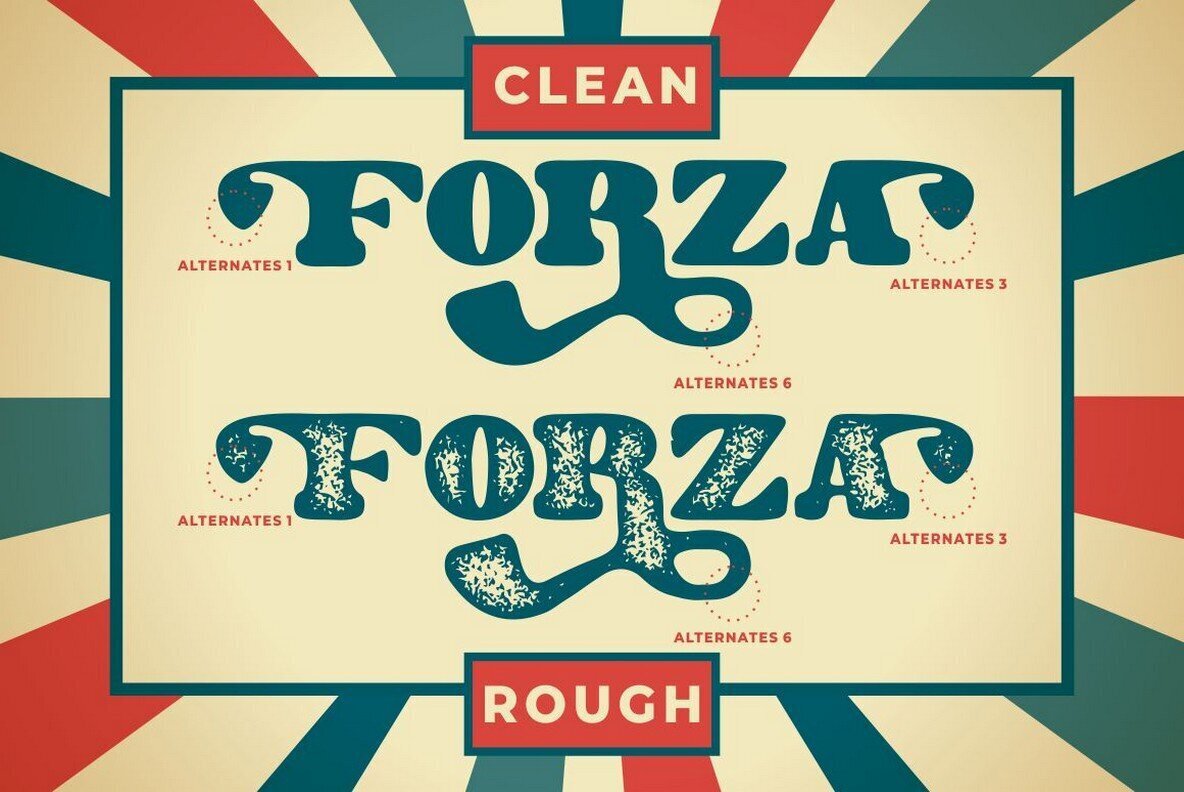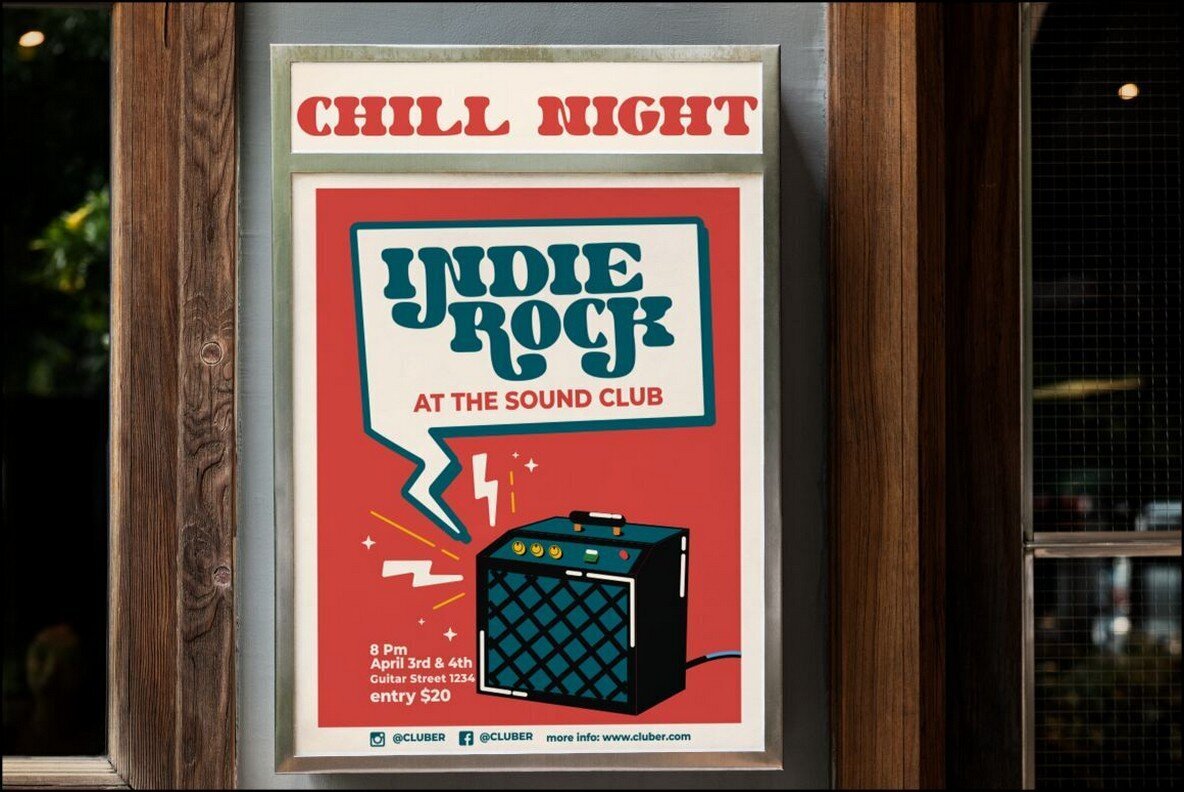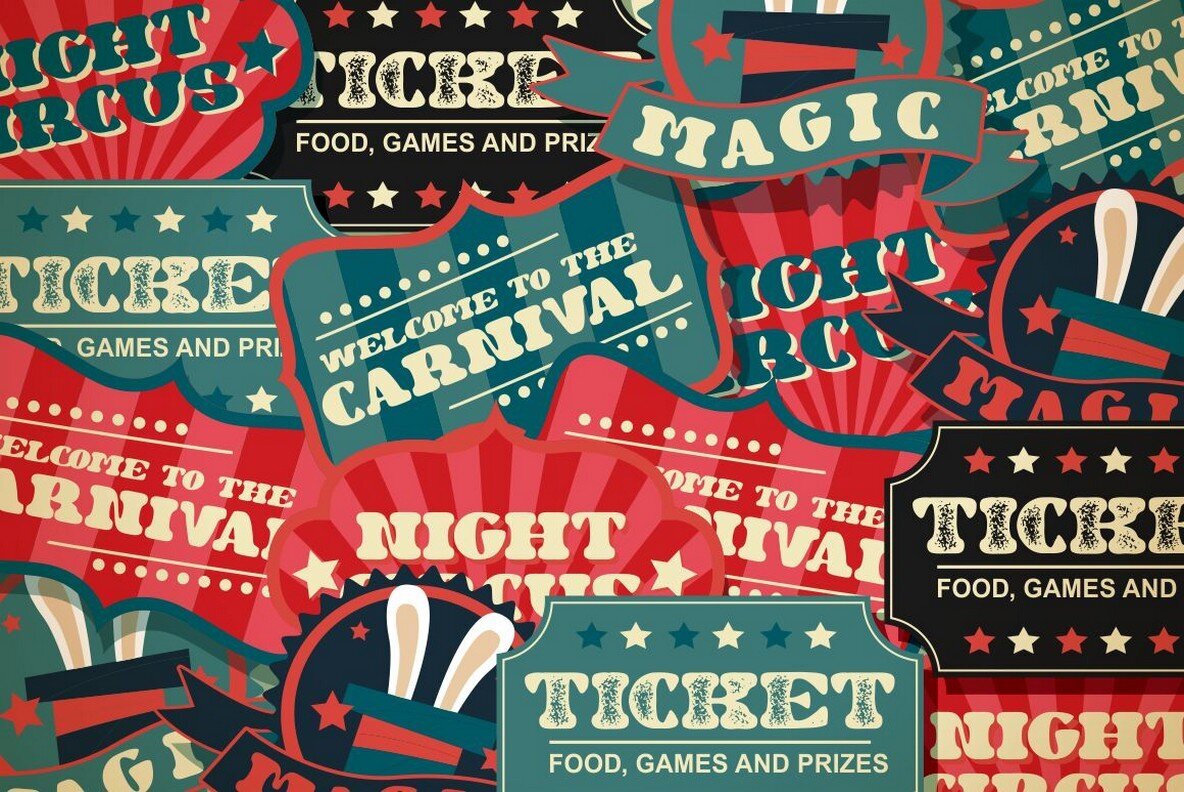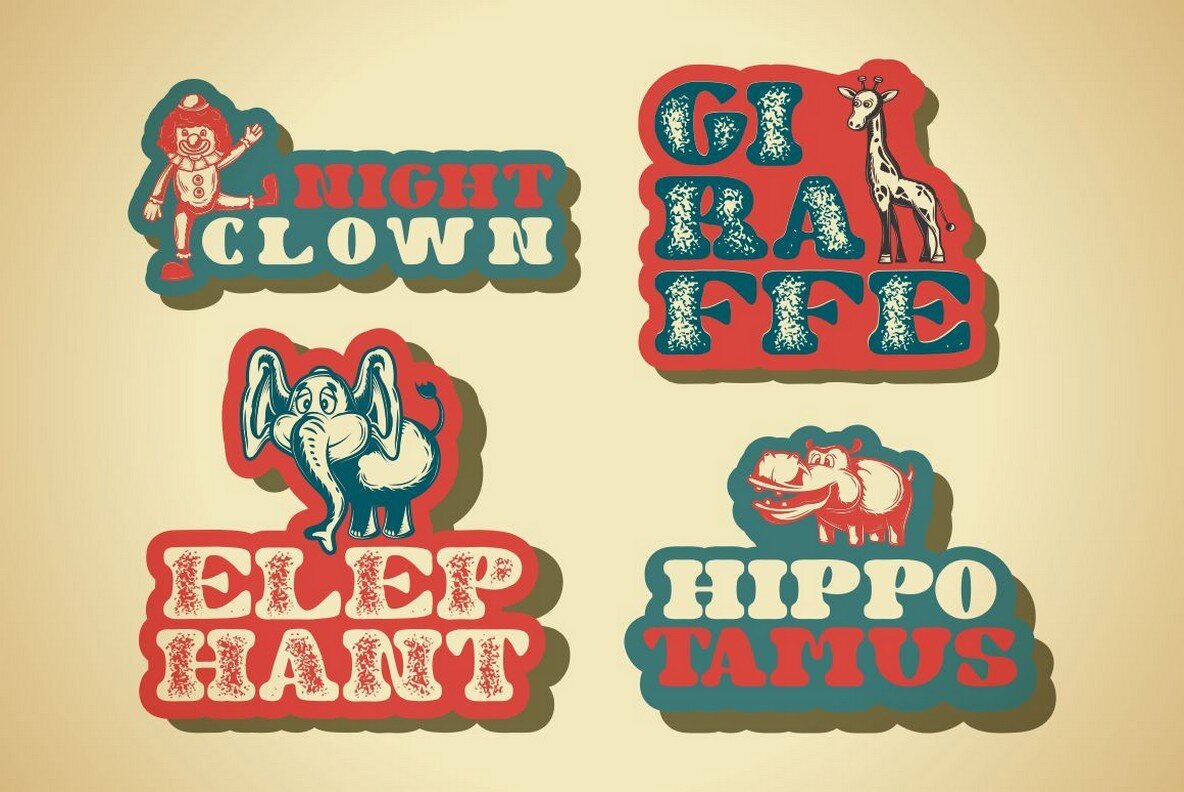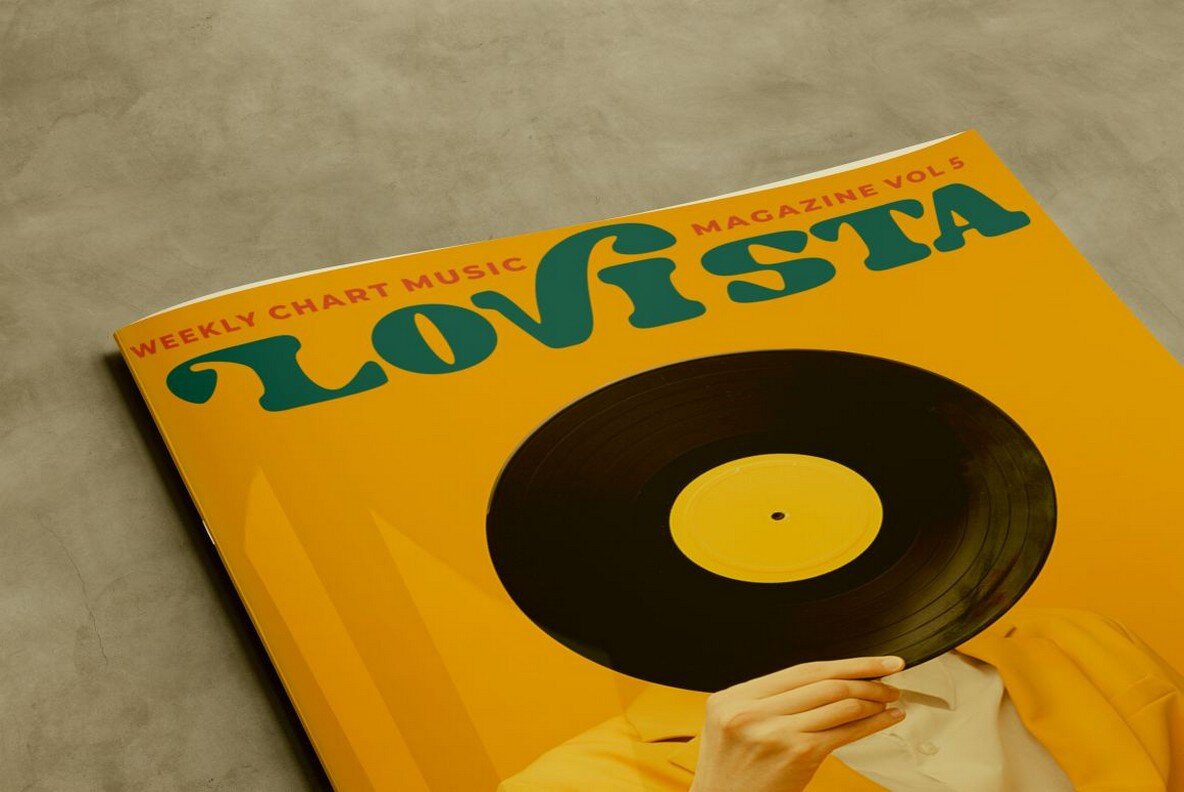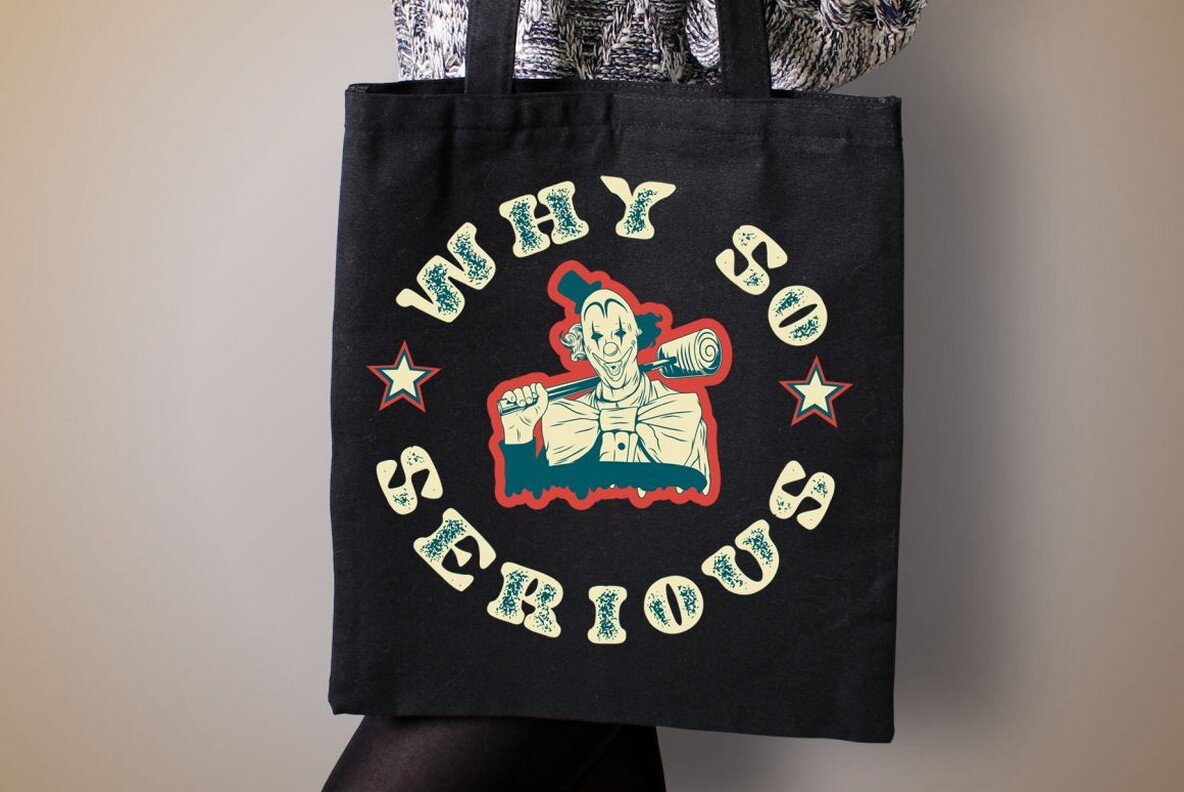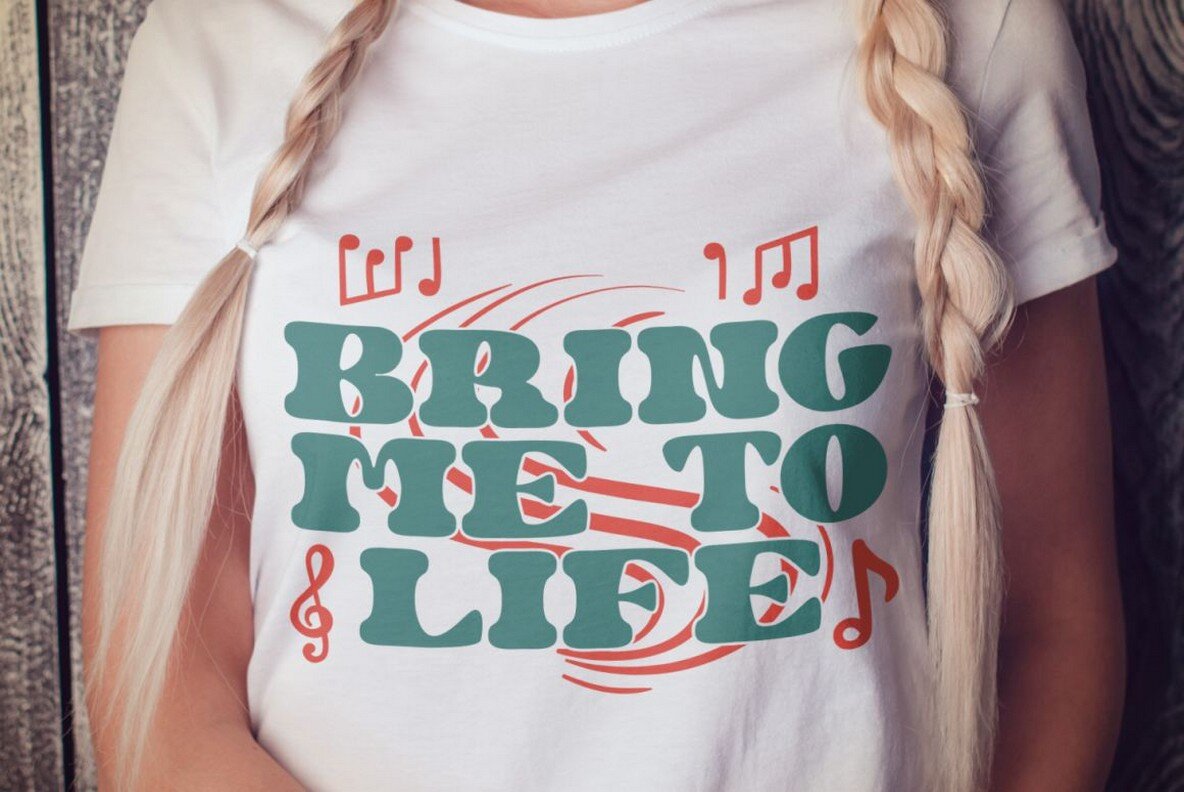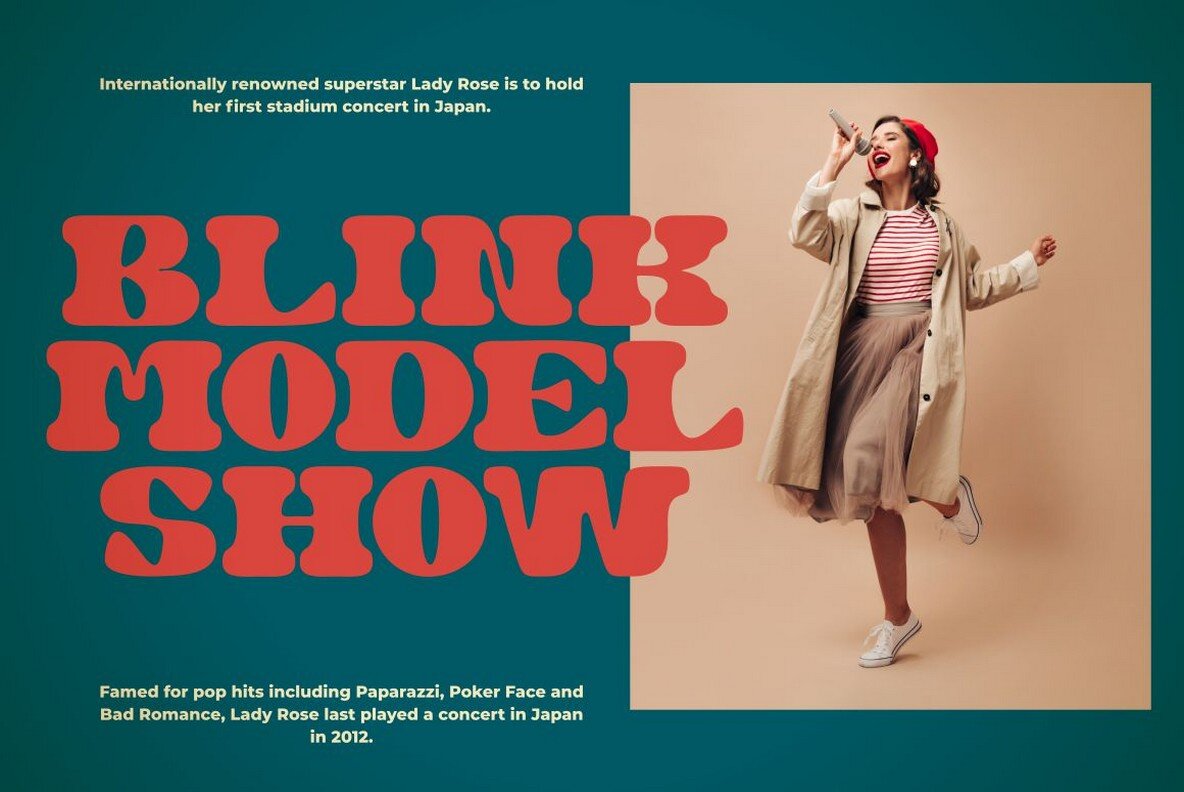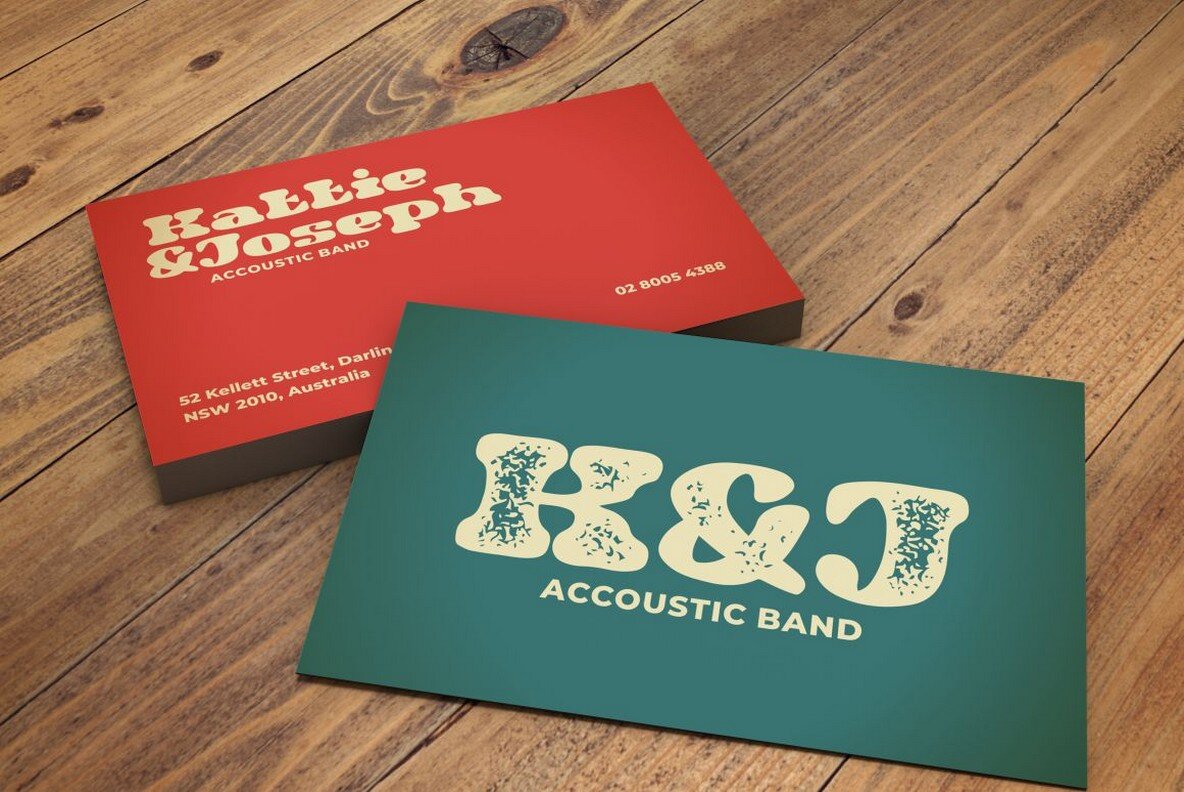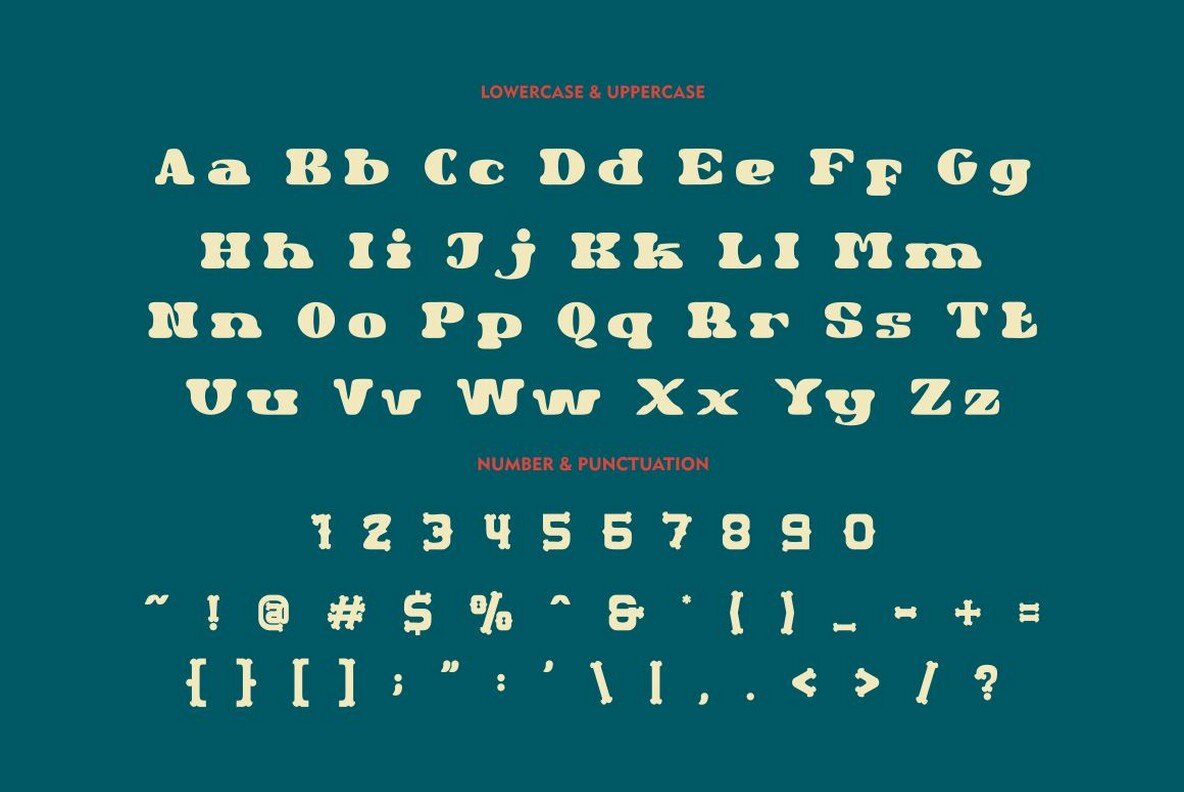
Antia Notario Font
Antia Notario embodies a modern vintage serif font that captures the spirit of the 60s and 70s with its bold and groovy design. This clean and unique typeface is enhanced with beautiful ligatures and a plethora of alternative glyphs, making it versatile for both large and small sizes. Its retro charm lends itself well to various design applications, especially those nostalgic for mid-century aesthetics. Features:Antia Notario: A Stylish Vintage Serif Gem